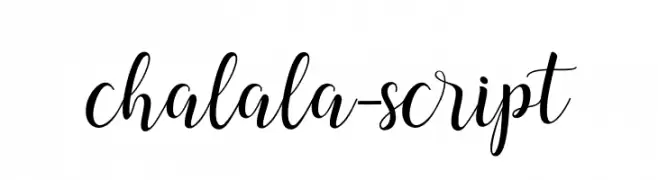
A delicate and flowing script font with elegant, cursive letterforms.
An elegant script font with flowing, cursive letters and a sophisticated appearance.
An elegant script font with flowing, cursive strokes and sophisticated style.
An elegant, cursive font with flowing, decorative elements.
An elegant script font with flowing lines and intricate swirls, perfect for sophisticated designs.
An elegant and flowing script font with refined cursive letters.
An elegant, flowing script font with graceful loops and swirls.
An elegant and flowing script font with smooth, cursive strokes.
An elegant script font with flowing swirls and classic charm.